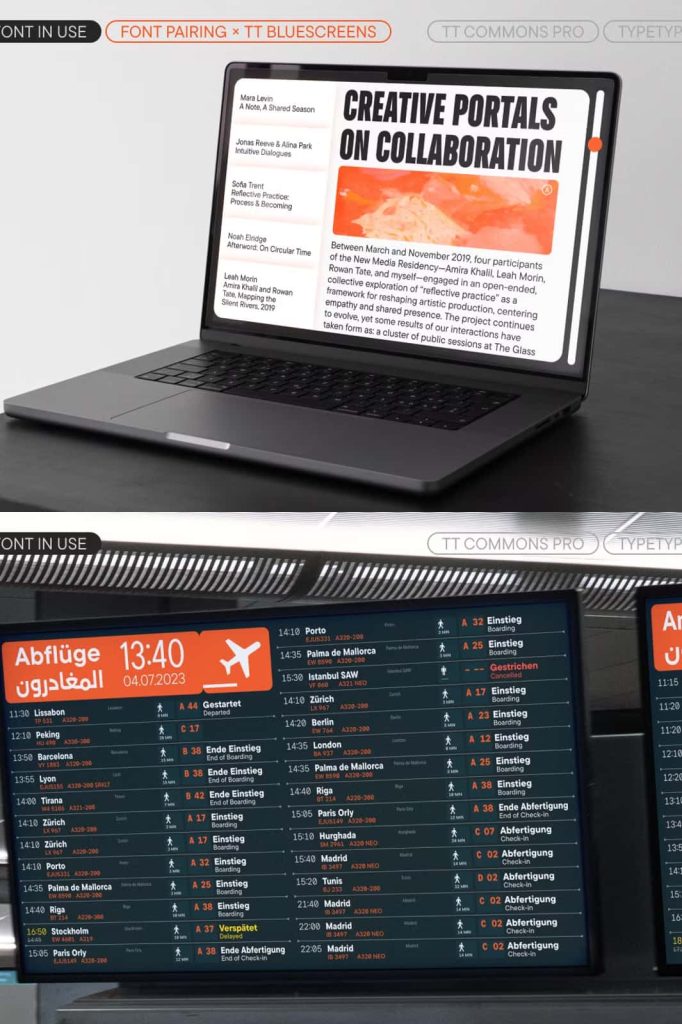
TT Commons Pro 4.000 Geometric Sans Serif Typeface
TT Commons Pro 4.000 introduces a powerful and comprehensive update to one of the most in-demand geometric sans serif typefaces. This latest version expands its capabilities with enhanced language support, including Arabic, a broader character set, and improved functionality. Designed to meet modern design needs, TT Commons Pro delivers flexibility, clarity, and precision across a wide range of creative and professional applications.
This typeface has earned recognition for its clean structure and adaptable nature. Designers rely on TT Commons Pro to create consistent, high-quality typography that performs well in both digital and print environments. With this new update, the font becomes even more versatile, allowing users to work across multiple languages and design systems with confidence.
Expanded Language Support Including Arabic
TT Commons Pro 4.000 significantly enhances its multilingual capabilities by introducing Arabic support alongside its already extensive language coverage. This expansion allows designers to create cohesive global designs without switching between multiple typefaces. The font ensures visual consistency while respecting the unique characteristics of each language.
By supporting a wide range of scripts, TT Commons Pro enables brands and designers to communicate effectively with diverse audiences. This makes it an essential tool for international projects, corporate branding, and cross-cultural communication.
Designed for Global Communication
The addition of Arabic support reflects a commitment to inclusivity and modern design requirements. TT Commons Pro allows designers to build unified visual identities that work seamlessly across different regions and languages. This capability strengthens brand consistency and improves overall communication.
Geometric Structure with Versatile Character
TT Commons Pro features a geometric sans serif foundation that emphasizes balance, clarity, and simplicity. Its clean lines and precise shapes create a modern aesthetic that works well in a variety of design contexts. The font maintains a neutral yet distinctive appearance, making it suitable for both corporate and creative projects.
Designers can actively use TT Commons Pro to create layouts that feel structured and professional. Its geometric construction ensures readability while maintaining a refined visual style that enhances overall design quality.
Adaptable for Multiple Design Styles
TT Commons Pro adapts effortlessly to different visual directions. Whether used in minimal layouts or more complex compositions, the font maintains consistency and clarity. This flexibility allows designers to experiment while preserving a cohesive typographic system.
Extensive Character Set for Maximum Flexibility
TT Commons Pro offers an expanded character set that supports a vast number of languages and typographic needs. This comprehensive range allows designers to handle complex projects without limitations. From basic text to specialized characters, the font provides everything needed to create detailed and accurate typography.
The extended character set ensures that designers can work efficiently across different projects without compromising quality. It also supports advanced typographic requirements, making it suitable for editorial, branding, and technical applications.
Streamlined Workflow for Designers
With its extensive character coverage, TT Commons Pro simplifies the design process. Designers can rely on a single typeface to handle multiple languages and styles, reducing the need for additional fonts. This improves workflow efficiency and ensures consistency across all design elements.
Advanced OpenType Features for Precision
TT Commons Pro includes a robust set of OpenType features that enhance typographic control and creativity. These features allow designers to fine-tune text, adjust stylistic elements, and create more sophisticated layouts. The font supports ligatures, alternate characters, and other advanced options that improve both aesthetics and functionality.
By leveraging these features, designers can create polished and professional typography that meets modern design standards. The flexibility offered by OpenType functionality ensures that every detail aligns with the overall design vision.
Ideal for Branding, Editorial, and Digital Design
TT Commons Pro excels across a wide range of applications, including branding, editorial design, user interfaces, and marketing materials. Its clean and versatile style makes it suitable for logos, websites, mobile apps, and printed publications. The font maintains readability and consistency across all platforms, ensuring a seamless user experience.
Designers can actively use TT Commons Pro to build strong visual identities and create engaging content. Its adaptability allows it to perform well in both large headlines and smaller body text, making it a reliable choice for comprehensive design systems.
Elevate Your Typography with TT Commons Pro
TT Commons Pro 4.000 empowers designers to create modern, functional, and globally accessible typography. Its combination of geometric precision, multilingual support, and advanced features makes it a valuable asset for any creative project.
By choosing TT Commons Pro, you gain a typeface that delivers consistency, flexibility, and performance. It transforms typography into a strategic design tool that enhances communication and elevates the overall quality of your work.